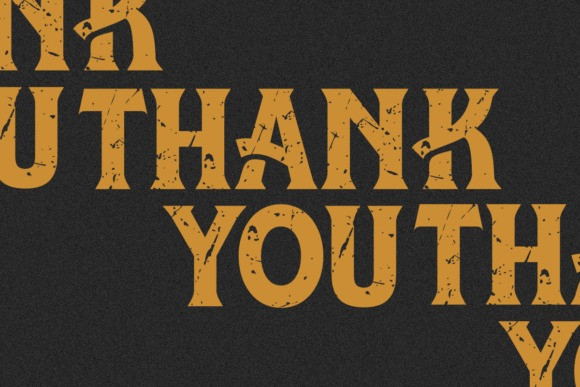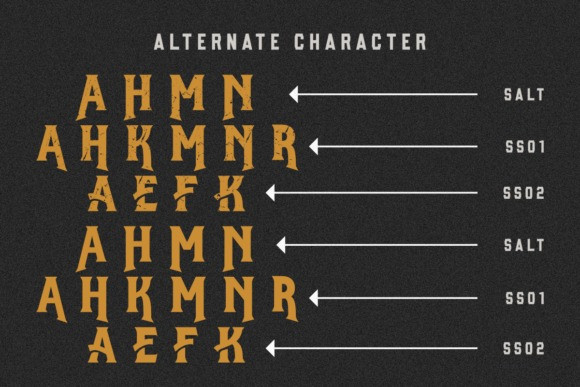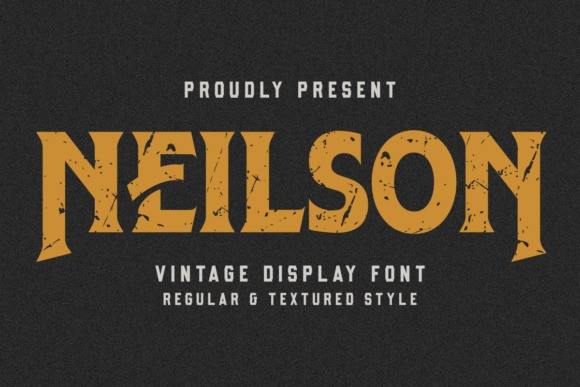
Neilson Font
Neilson Font – an artfully crafted vintage font. This timeless typography brings an authentic antique charm, perfect for personalizing quotes, infusing a retro vibe into t-shirts and tote bags, and lending a classic flair to greeting cards. For mugs and all designs craving an added layer of heritage, Neilson is the go-to typography for drawing nostalgia and creating that truly vintage aura.